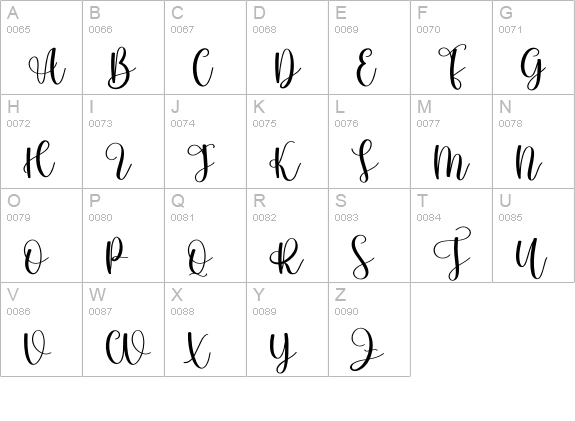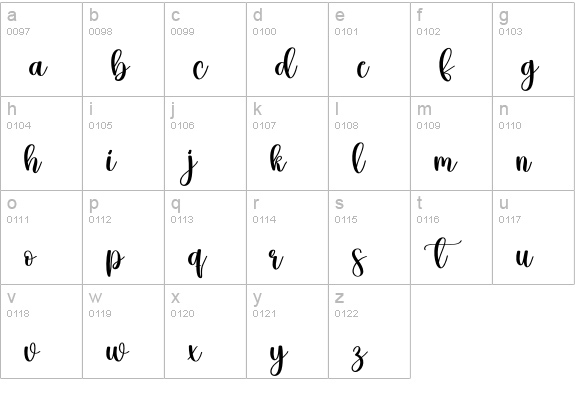
Saturday Font Details
Saturday is a free for personal use font in the Script > Handwritten category, designed by scratchones. It has been downloaded 34 times and is available for Windows, Mac and Linux.
Saturday font is a unique and stylish typeface that will bring a touch of fun and sophistication to your design projects. With its elegant yet playful aesthetic, Saturday font is perfect for a wide range of applications, from branding to social media graphics to invitations. The versatility of this font makes it a must-have in any designer's toolkit.